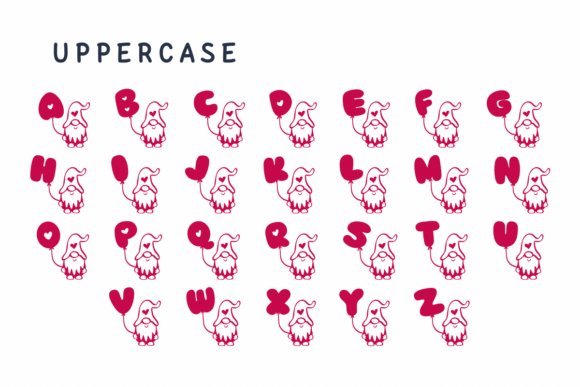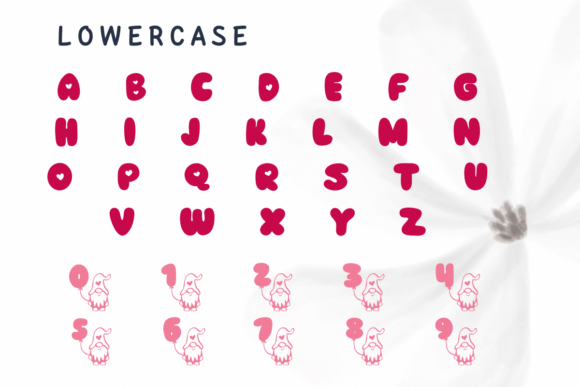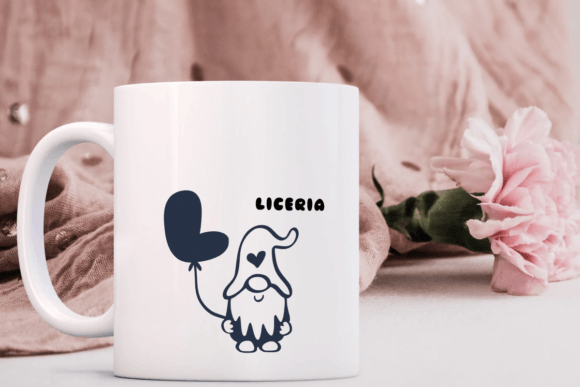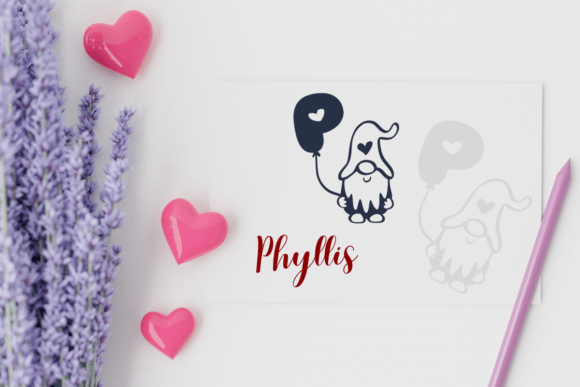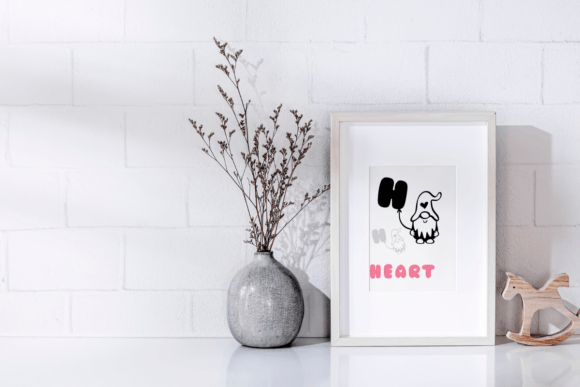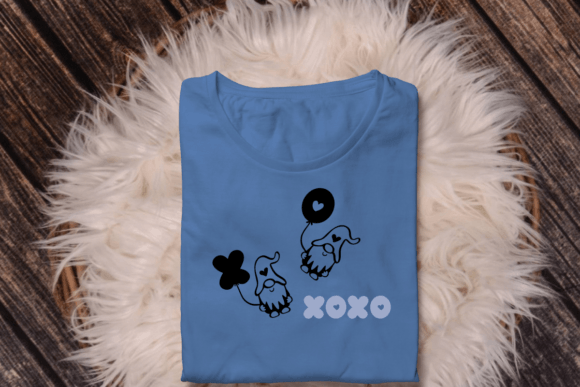
Gnome Balloon Font: A Whimsical Decorative Font for Creative Projects
Are you a designer, crafter, or DIY enthusiast looking for a unique and playful font to add a touch of personality to your projects? Look no further than the Gnome Balloon font! This decorative font is perfect for a variety of creative endeavors, from taking notes and writing diaries to making greeting cards and designing banners.
What is Gnome Balloon Font?
Gnome Balloon is a decorative font that features a whimsical and playful design. The font is characterized by its rounded and inflated letters, which give it a balloon-like appearance. The font is perfect for adding a touch of fun and personality to any project.
Uses for Gnome Balloon Font
Gnome Balloon font is versatile and can be used for a wide range of creative projects, including:
- Note-taking and journaling: Add a touch of whimsy to your notes and diary entries with the Gnome Balloon font.
- Greeting cards: Create one-of-a-kind greeting cards for special occasions, such as birthdays, holidays, and weddings.
- Banners and signs: Use the Gnome Balloon font to create eye-catching banners and signs for parties, events, and promotions.
- Social media posts: Add a playful touch to your social media posts and make them stand out from the crowd.
- Mugs and ceramics: Design personalized mugs, plates, and other ceramics with the Gnome Balloon font.
- T-shirts and apparel: Create unique and playful designs for t-shirts, hoodies, and other apparel.
- Stationery and paper crafts: Use the Gnome Balloon font to create custom stationery, stickers, and other paper crafts.
Why Choose Gnome Balloon Font?
There are many reasons why you should choose the Gnome Balloon font for your creative projects. Here are a few:
- Unique and playful design: The Gnome Balloon font features a one-of-a-kind design that is sure to add a touch of personality to any project.
- Versatile: The font can be used for a wide range of creative projects, from note-taking and journaling to designing banners and signs.
Tips for Using Gnome Balloon Font
Here are a few tips for using the Gnome Balloon font in your creative projects:
- Experiment with different colors: The Gnome Balloon font looks great in a variety of colors, so don’t be afraid to experiment and find the perfect hue for your project.
- Mix and match with other fonts: The Gnome Balloon font pairs well with other fonts, so try mixing and matching it with different fonts to create a unique look.
- Use it sparingly: While the Gnome Balloon font is playful and fun, it can be overwhelming if used too much. Use it sparingly to add a touch of personality to your project.
The Gnome Balloon font is a versatile and playful decorative font that is perfect for a wide range of creative projects. Whether you’re a designer, crafter, or DIY enthusiast, this font is sure to add a touch of personality and whimsy to your work. With its easy-to-use design and unique balloon-like appearance, the Gnome Balloon font is a great choice for anyone looking to add a little fun and creativity to their projects.